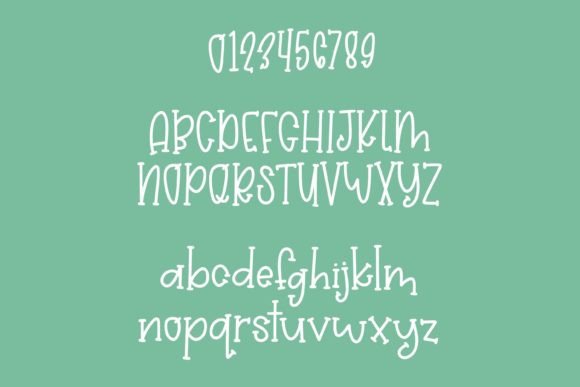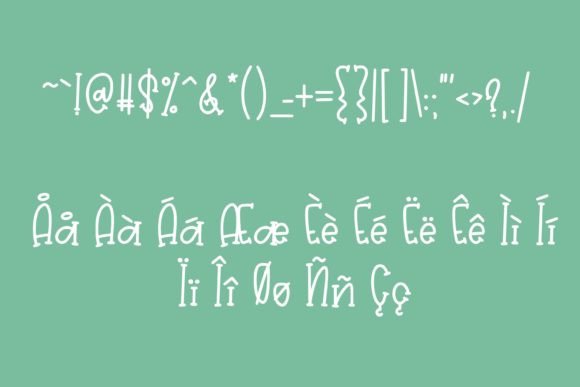
Introduction to Monkey Farts Font
As designers, we’ve all been there – staring at a blank canvas, trying to come up with the perfect font to bring our creative project to life. Sometimes, it’s the smallest details that make all the difference. I still remember the time I was working on a children’s book project and needed a font that would capture the playful essence of the story. That’s when I stumbled upon the Monkey Farts Font, and it was love at first sight!
This quirky serif font is more than just a design resource – it’s a game-changer. With its hand-drawn curves and imperfect lines, the Monkey Farts Font adds a touch of whimsy to any project. Whether you’re working on a party invitation, greeting card, or children’s book, this font is sure to bring a smile to your face and a dash of cheerfulness to your design.
As a valuable addition to any designer’s toolkit, the Monkey Farts Font offers high-quality multilingual support and a full set of characters, making it perfect for a wide range of creative projects. And the best part? It’s available for free download with a transparent background, making it easy to incorporate into your design.
Key Features of Monkey Farts Font
- High-quality design resource with a playful and whimsical style, perfect for creative projects.
- Features a unique and quirky design that’s sure to add a touch of humor to any project.
- Perfect for use in digital design, including logos, graphics, and other creative projects.
Honest Review: Monkey Farts Font
I recently came across the Monkey Farts Font, and I must say it’s quite the unique addition to any design resource library. The font is a high-quality addition to any creative project, offering a fun and quirky touch.
One of the standout features of the Monkey Farts Font is its transparent background, making it easy to use in a variety of design scenarios. This is particularly useful for graphic designers and artists who value versatility.
What works well with the Monkey Farts Font is its playful, lighthearted vibe. It’s perfect for adding a bit of whimsy to a project, whether you’re designing a children’s book, a logo, or even a social media graphic.
Here are some key features that make the Monkey Farts Font stand out:
One limitation of the Monkey Farts Font is its limited character set. While it’s perfect for adding a bit of flair to a project, it may not be suitable for longer blocks of text.
Overall, I’d give the Monkey Farts Font 4 out of 5 stars. It’s a fun and creative resource that’s sure to add some personality to any design project. Just be aware of its limitations and use it sparingly when needed.
Monkey Farts Font is a high-quality design resource that can be used in various creative projects, such as invitations, posters, and social media graphics. Its transparent background makes it easy to use on any design. You can also use it in free download templates for presentations and documents.
Getting the Most Out of Monkey Farts Font
To get the most out of Monkey Farts Font, use it in conjunction with other high-quality design resources, such as graphics and images. Experiment with different font sizes, colors, and arrangements to create a unique and eye-catching design. With Monkey Farts Font, the possibilities are endless!